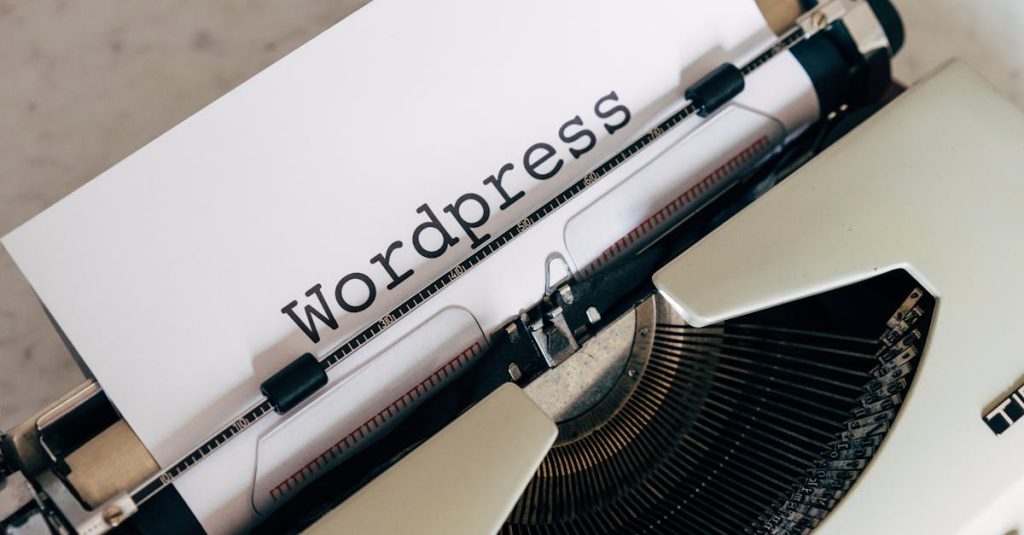
Add Fonts To Wordpress
Unlock your website's potential by learning how to Add Fonts To WordPress and enhance its visual appeal.
Unlock your site’s potential: add fonts to WordPress effortlessly. Enhance design and engage visitors today!
Introduction
Adding fonts to WordPress can significantly enhance the appearance and readability of your website. Whether you’re running a personal blog, an e-commerce store, or a professional portfolio, choosing the right fonts can convey your brand’s message and create a positive user experience. In this comprehensive guide, we will explore various methods to add fonts to WordPress, discuss the benefits of customizing your typography, and provide practical tips for achieving the best results.
Understanding Fonts in WordPress
Before we dive into the methods for adding fonts, let’s take a moment to understand what typography and fonts are in the context of web design. Typography refers to how text is arranged and presented on a website. Fonts are the specific styles of text that you apply. The right combination can elevate your website’s aesthetic, improve readability, and enhance user engagement.
Types of Fonts
There are several types of fonts available that you can use in your WordPress website:
• Serif Fonts: Have small lines or decorative strokes that are attached to the end of a larger stroke in a letter or symbol within a particular font. These fonts, like Times New Roman, evoke a classic and formal feel.
• Sans Serif Fonts: These lack the decorative edges typical of Serif fonts. Fonts like Arial provide a clean and modern look, making them easier to read on screens.
• Script Fonts: Mimic handwritten text and can add a personal touch. However, they may not always be suitable for body text due to readability concerns.
• Display Fonts: Use these for headlines and attention-grabbing displays. They are designed to stand out and may not be appropriate for long passages of text.
Methods to Add Fonts to WordPress
Using Google Fonts
Google Fonts is a widely-used library that offers a vast selection of free fonts. Here’s how to add Google Fonts to your WordPress site:
1. Visit the Google Fonts website and browse for your desired font.
2. Select the styles you want to use and click on ‘@import’ for CSS or ‘@media’ for a link code.
3. Copy the generated code.
4. Log into your WordPress dashboard, navigate to Appearance > Customize > Additional CSS, and paste the code.
5. To apply the new font, add CSS rules in Additional CSS to style the specific text elements.
Using WordPress Plugins
If you prefer a more automated process, consider using plugins specifically designed for adding custom fonts. Here are a couple of recommended plugins:
• Easy Google Fonts: This plugin allows you to add and customize Google Fonts without needing to touch any code. Simply install the plugin through your WordPress dashboard, and you’ll find options to configure fonts under Appearance > Customize.
• Custom Fonts: This plugin lets you upload your own fonts using the WordPress dashboard. You can manage and customize various font settings easily.
Uploading Custom Fonts Manually
For those who want complete control over their fonts, uploading them manually is an option. Follow these steps:
1. Obtain the font files in .woff, .woff2, .ttf, or other web-safe formats.
2. Use an FTP client or the File Manager in your hosting account to upload your font files to a folder in your WordPress installation, typically under wp-content/uploads.
3. Add the necessary CSS in your theme’s stylesheet (style.css) to declare the font face and specify where the fonts are located.
Benefits of Adding Fonts to WordPress
Now that we’ve covered how to add fonts to WordPress, let’s discuss the benefits:
Enhanced Branding
Custom fonts align with your brand’s identity. Using unique typography helps your site to stand out from competitors. Whether it’s a specific style that reflects your brand’s personality or a unique font that resonates with your audience, clearly defined typography can reinforce brand recognition.
Improved User Experience